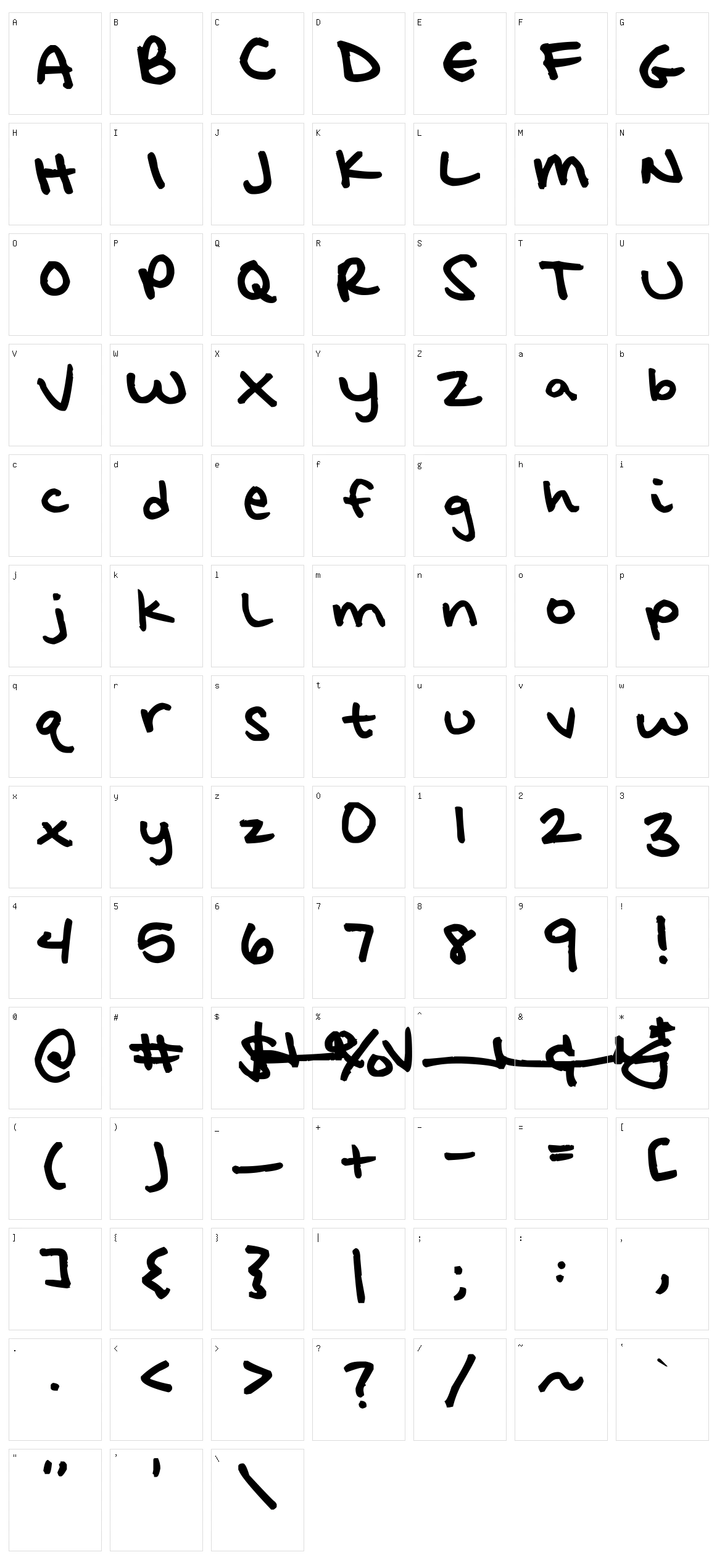
The free font H6 is carefully designed by Hali Vanderburg, showcasing a thoughtful balance of creativity and usability and falls under the Script font style. When you download the ZIP file, it contains only 12.14 KB of font files, making it lightweight and quick to download. Please review the license details below to understand permitted usage and distribution rights. If license information is not available, we recommend using this font for personal projects only or contacting the author directly for commercial usage permissions.